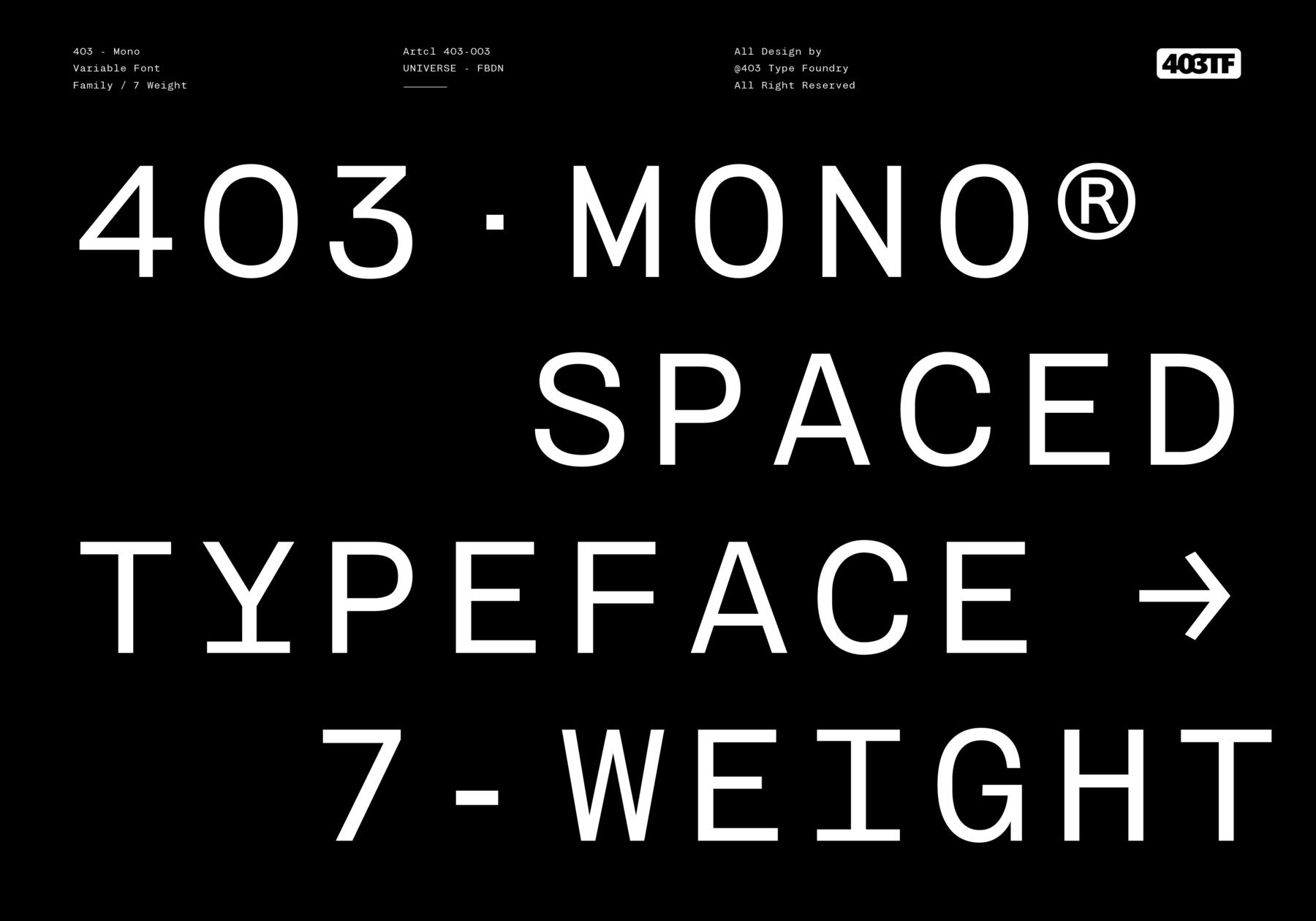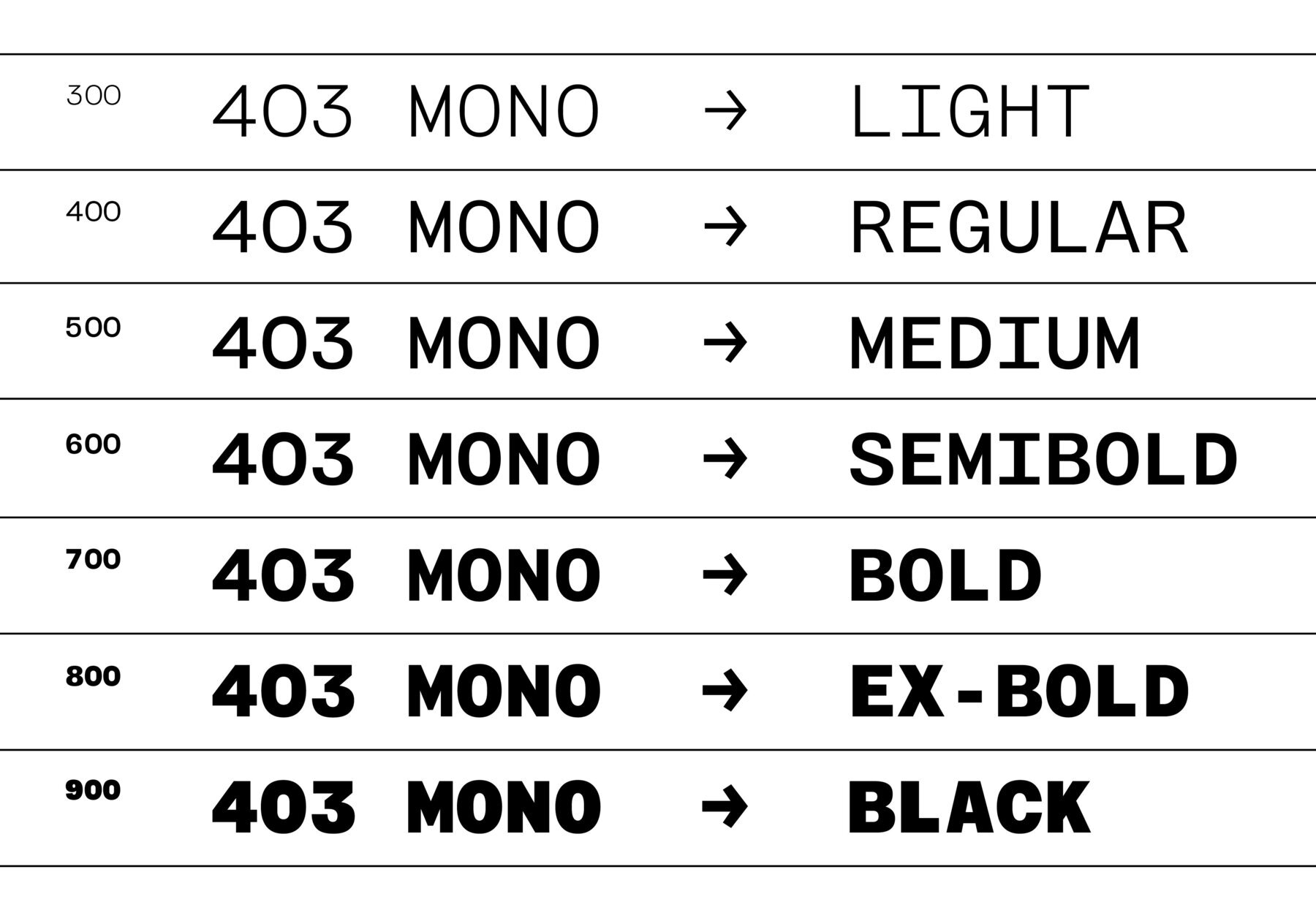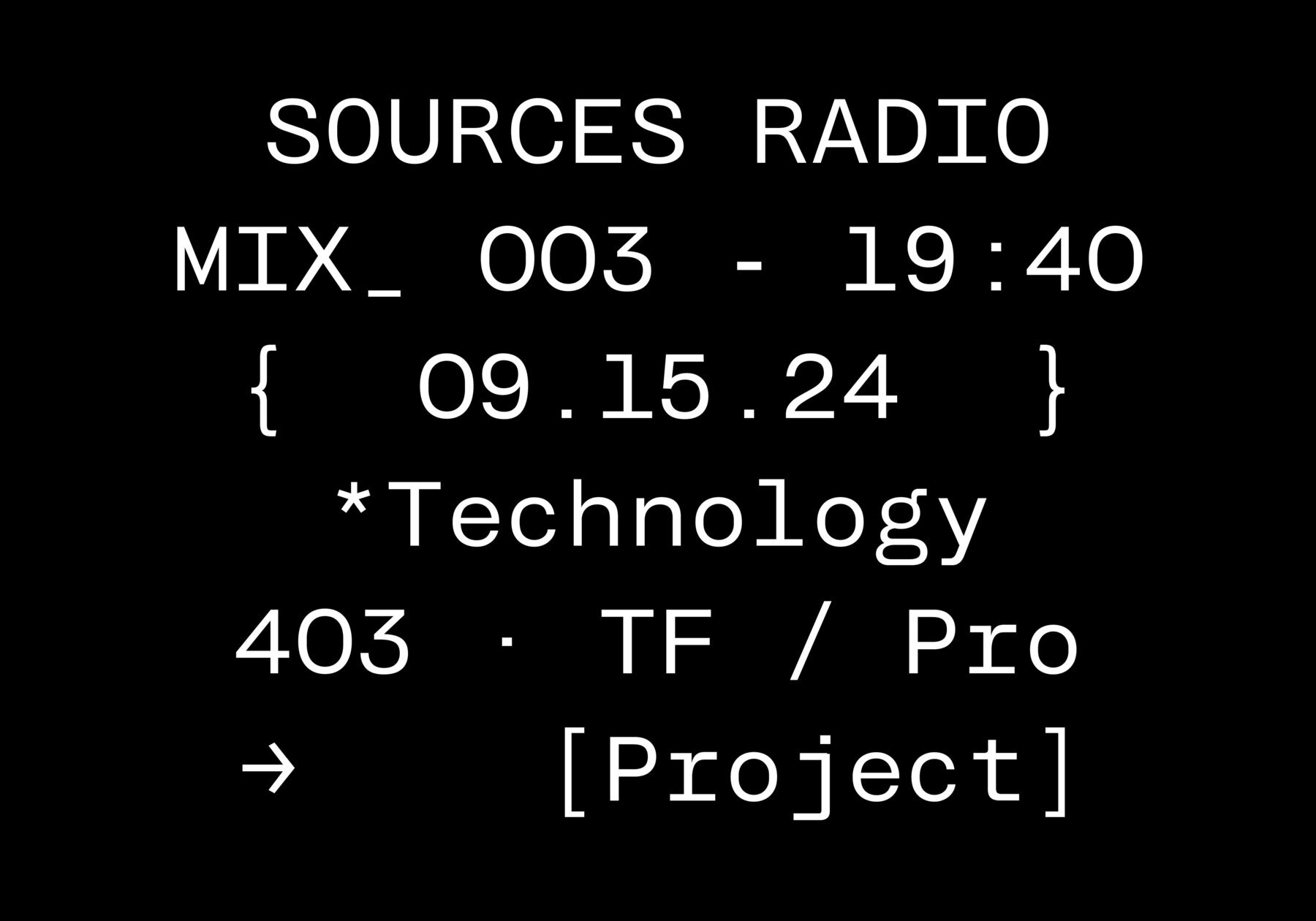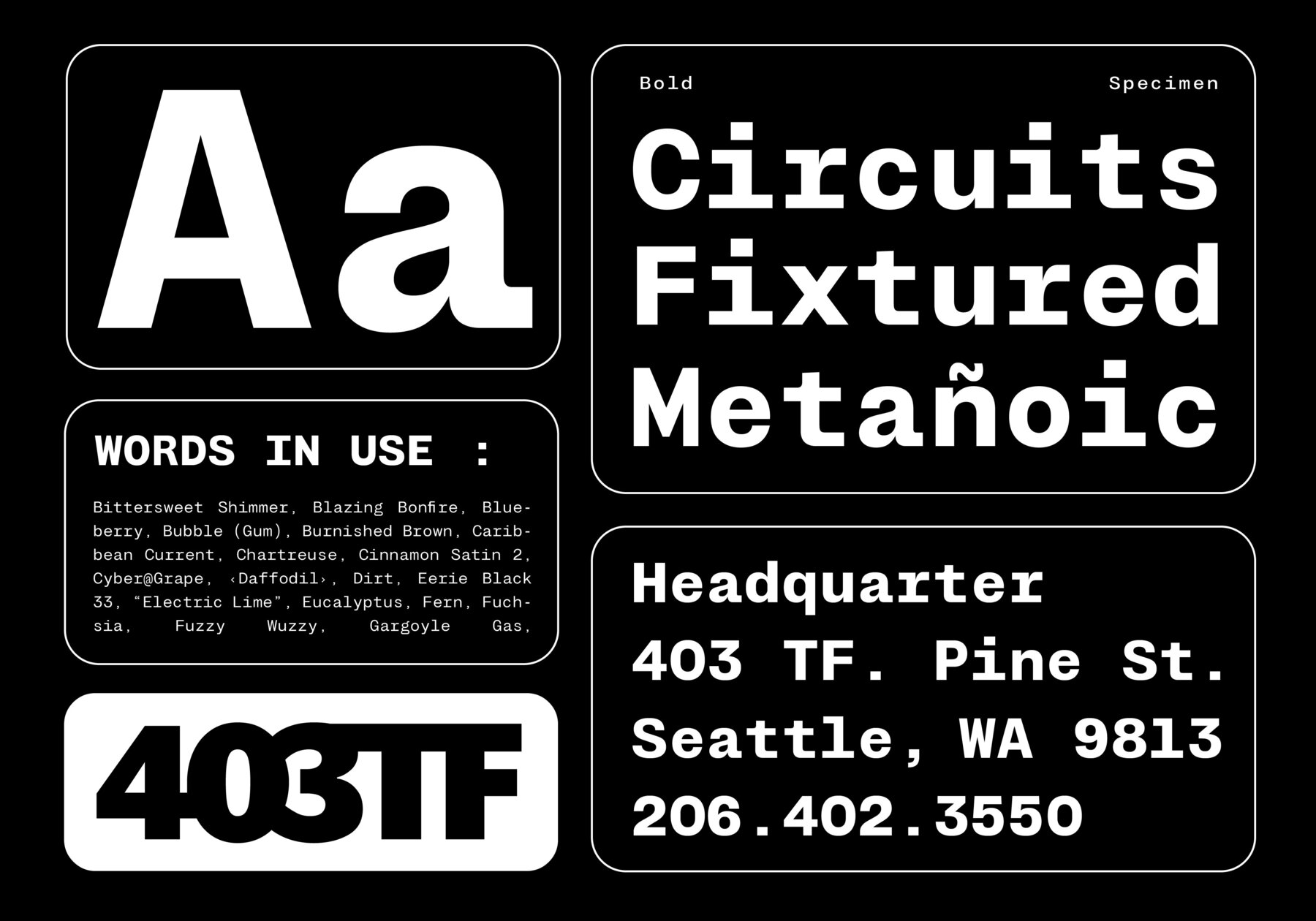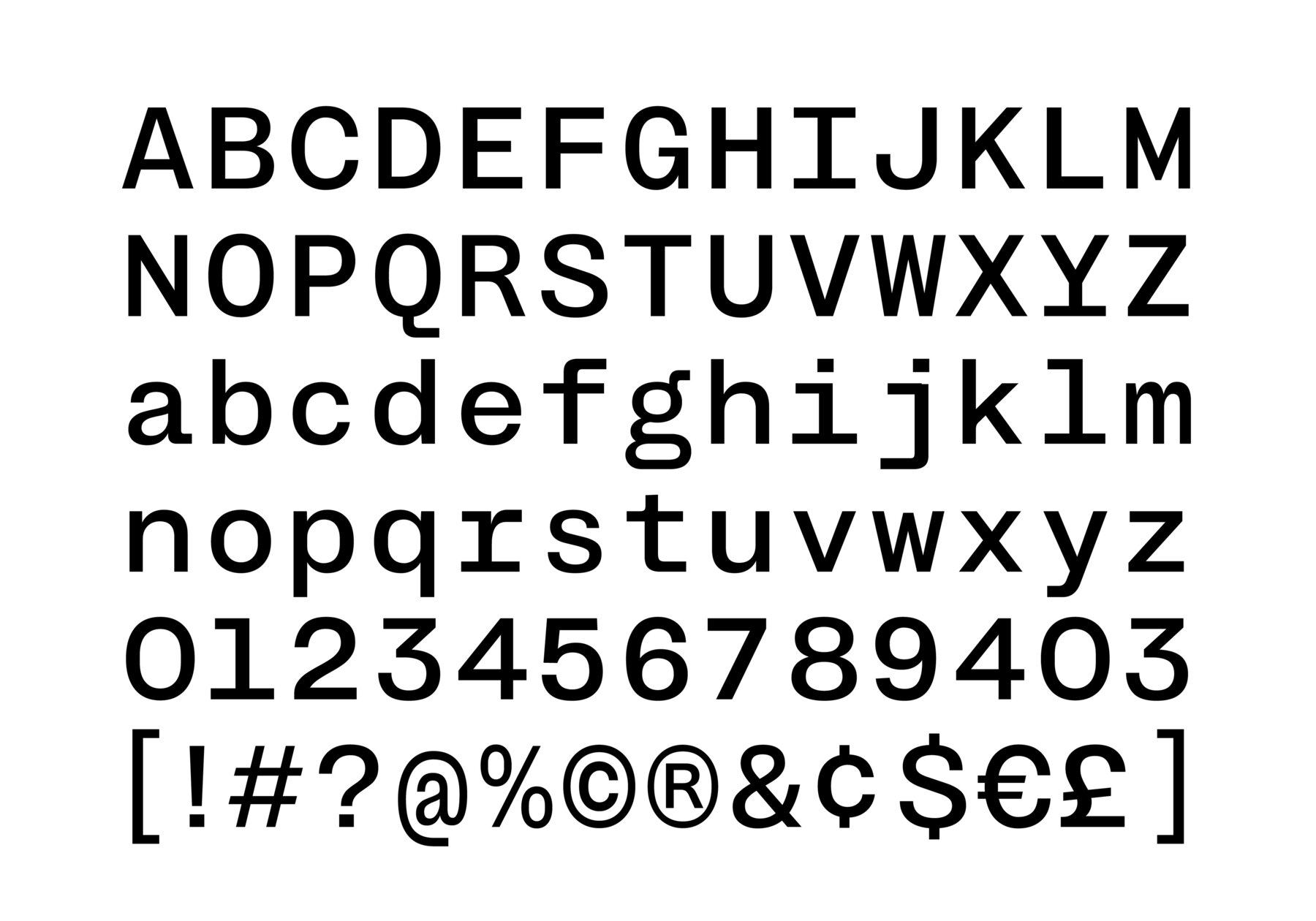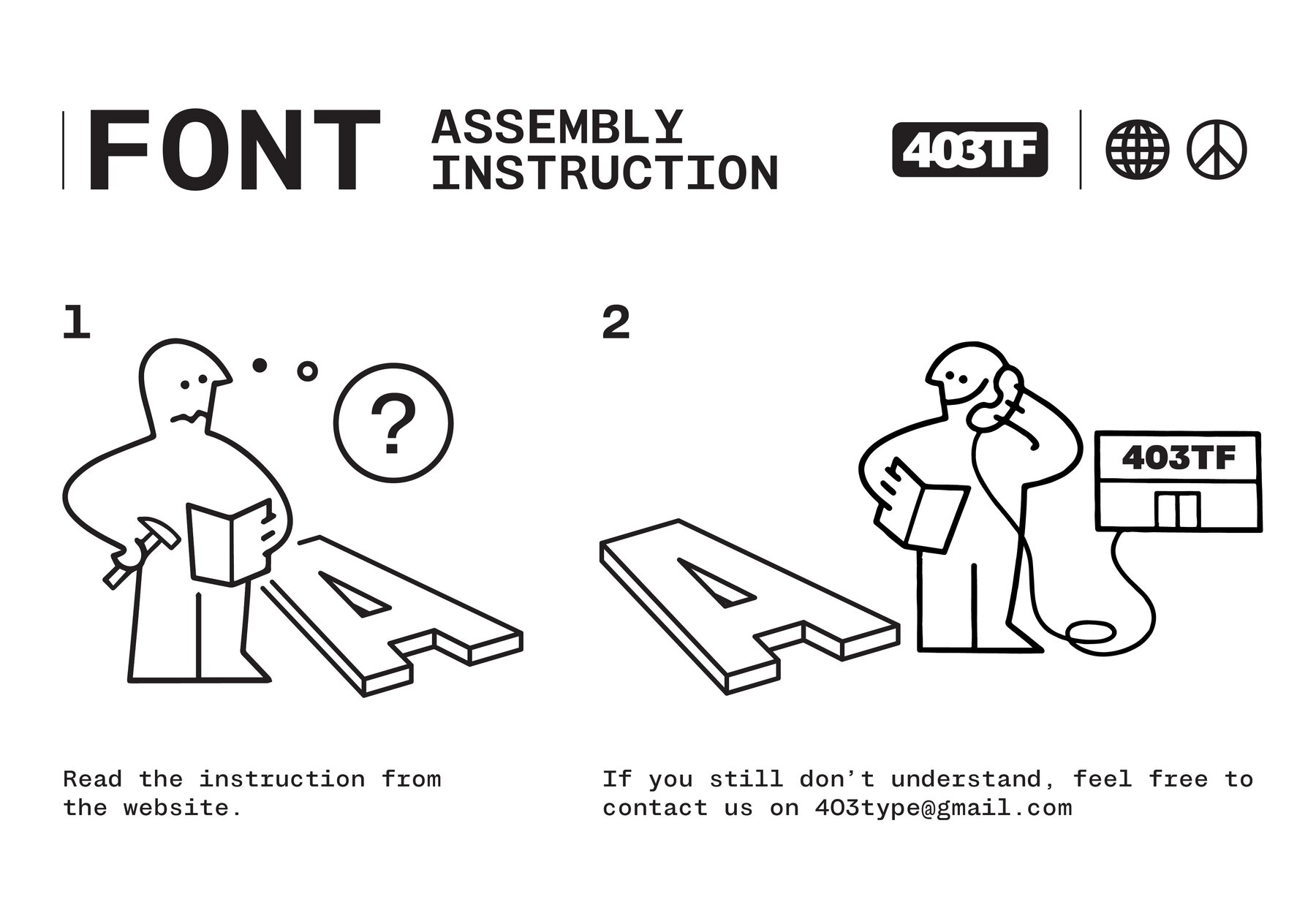
403 Mono Font
Introducing 403 Mono, a versatile monospaced typeface designed to elevate your digital projects. With its clean lines, consistent character widths, and seven distinct weights, 403 Mono offers unparalleled readability and aesthetic appeal. Its variable design empowers you to effortlessly adjust the weight and style to suit your specific needs, ensuring perfect harmony across various applications. Packed with OpenType features, this font supports a wide range of languages and offers advanced typographic control. Whether you're crafting code, designing interfaces, or simply adding a touch of elegance to your text, 403 Mono is the ideal choice.